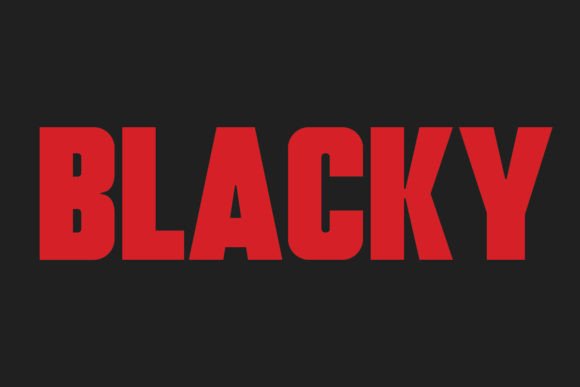
The Power of Blacky Font: Elevate Your Designs with Elegance
I’ll never forget the time I was working on a project for a luxury brand, and I was struggling to find the perfect font to convey their high-end image. The client was particular about the aesthetic, and I had to deliver. After hours of scouring through font libraries, I stumbled upon Blacky Font. It was like a breath of fresh air – powerful, elegant, and sophisticated. In that moment, I knew I had found the perfect fit. In this article, I’ll share with you why Blacky Font is an incredible asset to your font library and how to make the most of its features.
An Honest Review of Blacky Font
- ✨ Versatility: Blacky Font is a display typeface that can be used for a wide range of projects, from luxury branding to creative campaigns.
- ✅ Elegance: The font exudes sophistication and poise, making it perfect for high-end designs.
- 💥 Impact: Blacky Font is designed to make a statement, and it certainly delivers.
While Blacky Font is an exceptional typeface, there are a few things to keep in mind:
- ⚠️ Legibility at small sizes: As with many display fonts, Blacky may not be the best choice for body text or small font sizes.
- 🤔 Overuse: With a font as powerful as Blacky, it’s easy to overuse it. Make sure to balance it with other typography to avoid overwhelming the design.
A Practical Guide to Using Blacky Font
- Experiment with OpenType features, such as Stylistic Alternates, to add visual interest to your text.
- Explore the Character panel to access OpenType features, glyphs, and stylistic alternates.
The Backstory of Blacky Font
Blacky Font was designed by a renowned typographer who aimed to create a powerful and elegant display typeface. Inspired by classic luxury fonts, the designer sought to craft a font that would exude sophistication and poise. After months of refinement, Blacky Font was born – a testament to the designer’s skill and attention to detail.
Q: What is Blacky Font best suited for?
A: Blacky Font is ideal for luxury branding, creative campaigns, and high-end designs where elegance and sophistication are paramount.
Q: Can I use Blacky Font for body text?
A: While possible, Blacky Font is not recommended for body text due to its display nature and potential legibility issues at small sizes.
Q: Is Blacky Font suitable for digital use?
A: Yes, Blacky Font is optimized for digital use and can be used on websites, social media, and digital advertising.